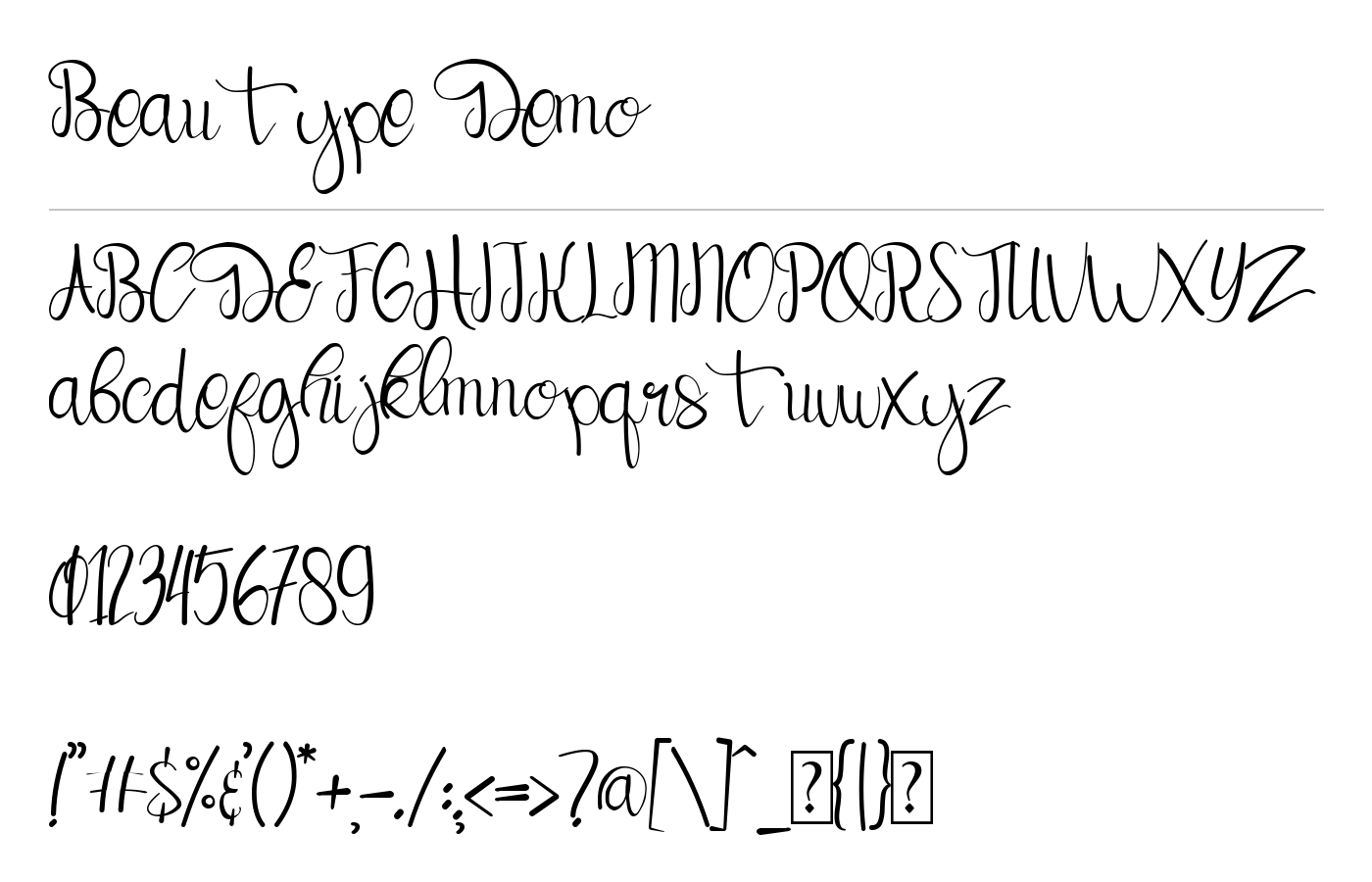
Beautype Demo Font is a delicate, handwritten script with a playful and artistic feel, featuring slender, flowing letterforms and whimsical flourishes that give it a personal, handcrafted touch. Its light weight and tall, narrow proportions make it ideal for creative designs that need a unique, friendly vibe, such as invitations, branding, or social media graphics where an informal, charming style is desired. This font works best in decorative or headline use, adding a distinctive, elegant flair without overwhelming the layout.
Beautype Demo Font